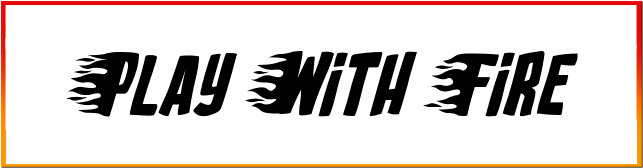
Play With Fire Font
Play With Fire
Play With Fire is a fancy font created by IMAGEX. Bold and full of character, it's built to stand out rather than blend in. You can download it for free and test it with your own words in the preview above.
What You Can Type With Play With Fire
You get every letter from A to Z in both cases and all the numbers from 0 to 9, which means Play With Fire can handle full sentences, dates and prices. Common punctuation such as &, !, ? and @ is included as well. It also has the accented letters you need for Spanish, French, German, Portuguese and Italian.
Where Play With Fire Works Best
Think of Play With Fire for posters, logos and eye-catching headlines. Use it for one standout word or headline and let simpler fonts handle the rest.
Does Play With Fire support accented letters?
Yes. Play With Fire includes the accented letters needed for Spanish, French, German, Portuguese and Italian, so it works for more than just English.